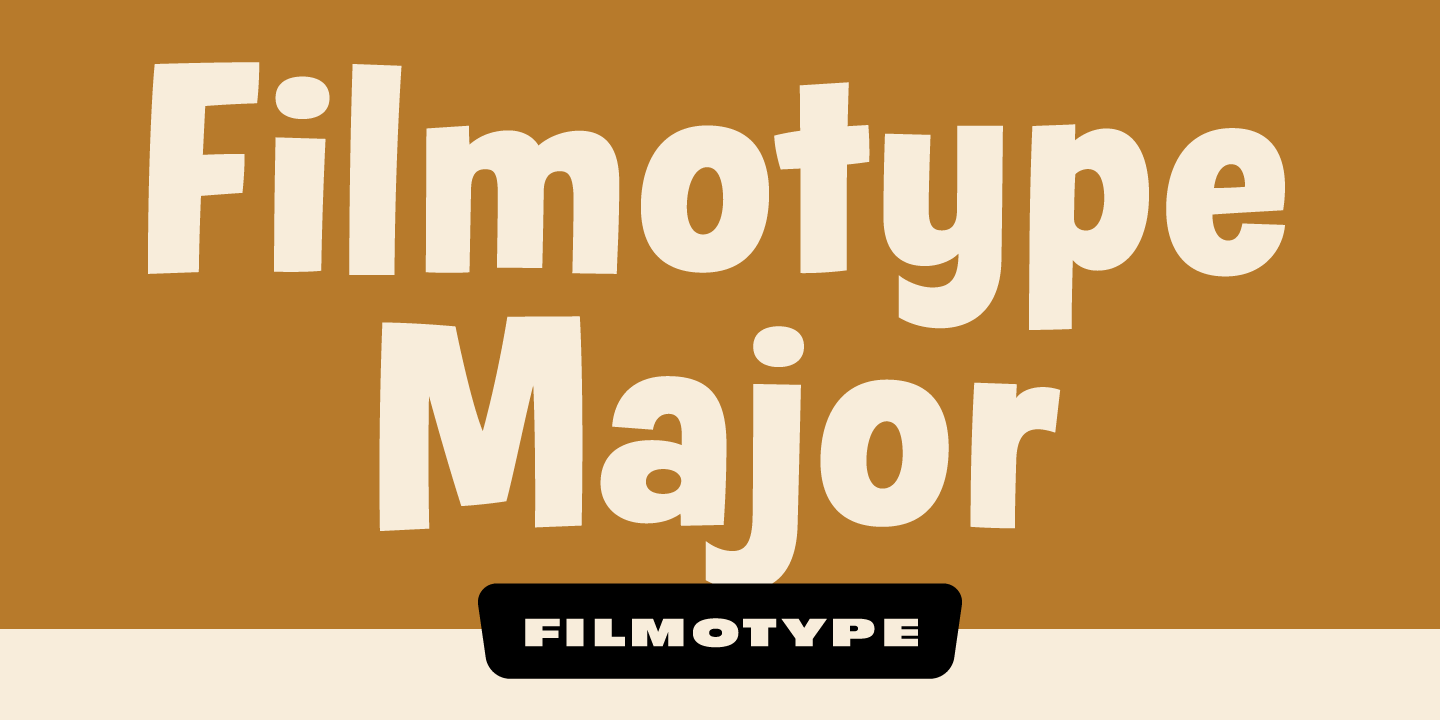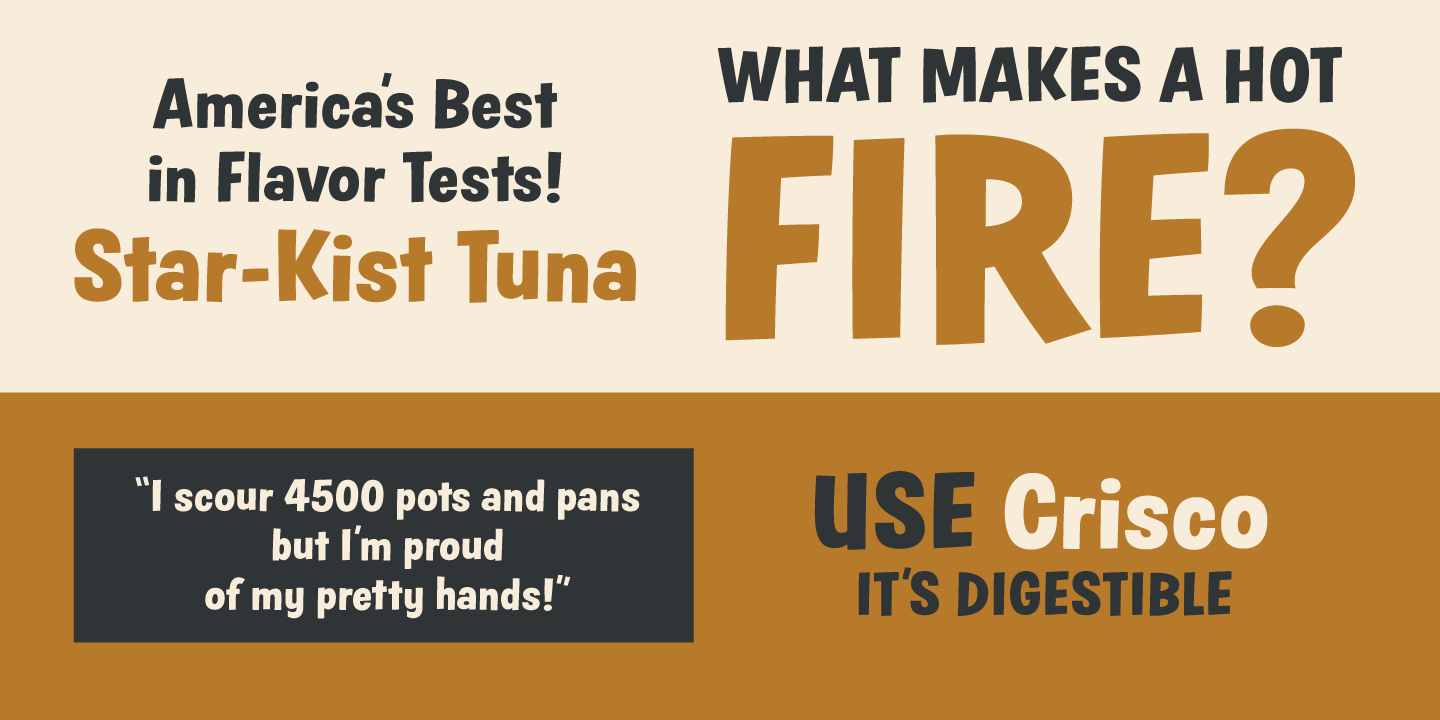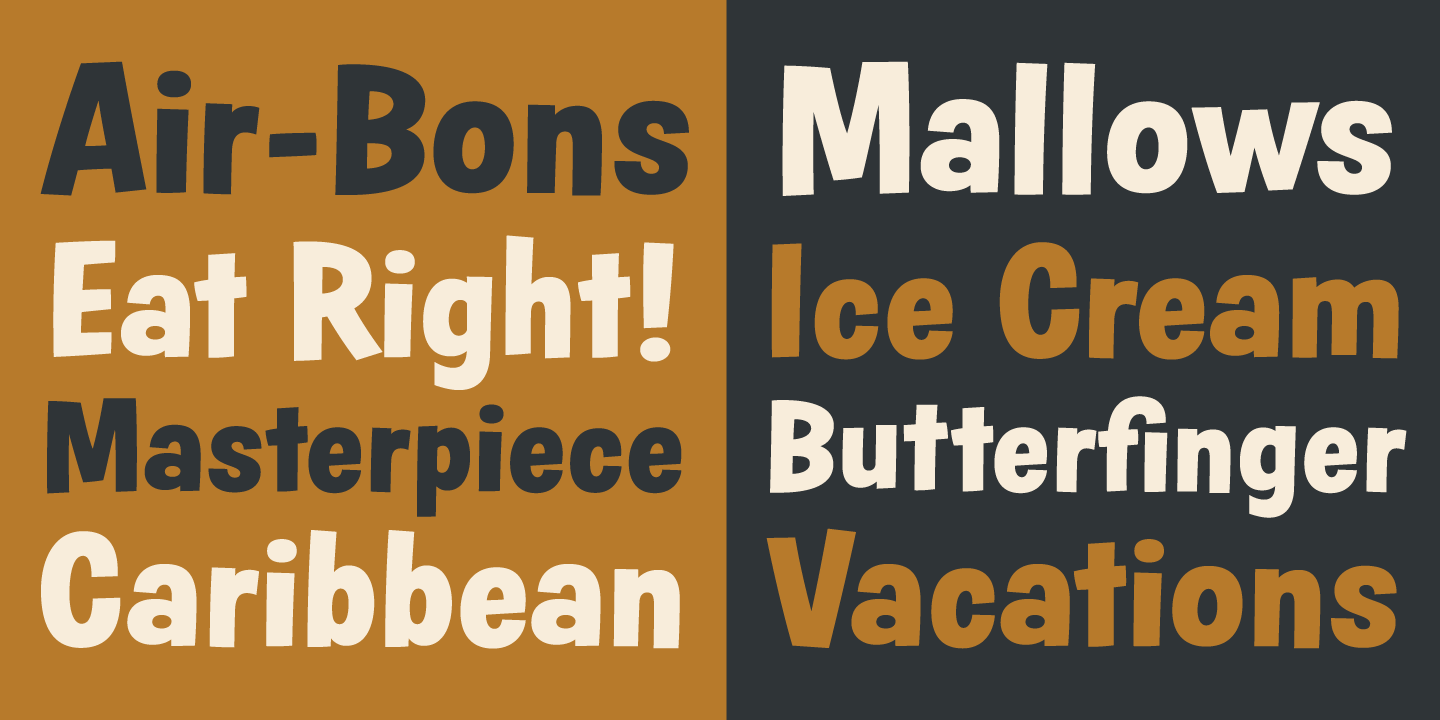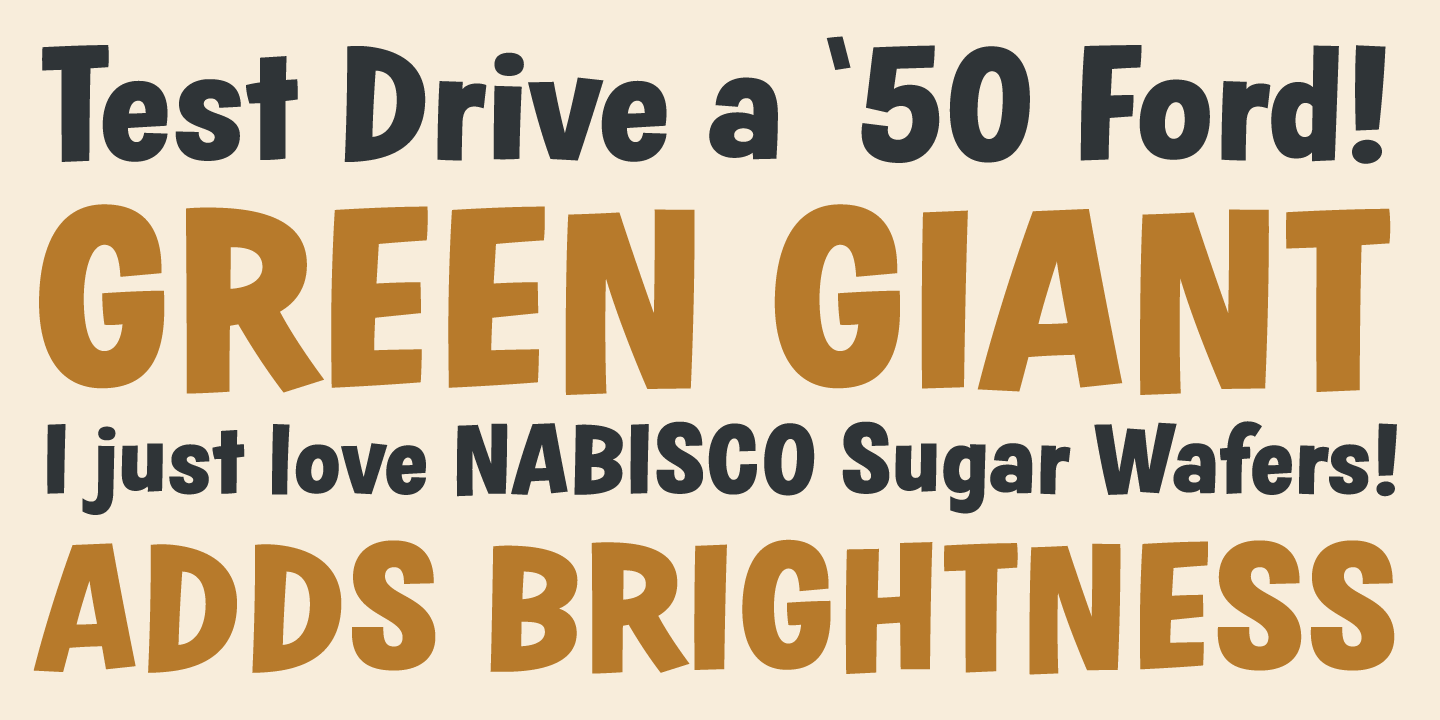
Filmotype Major
Filmotype Major is one of the hallmarks of the Free Style faces of the Filmotype Library. This bouncy sans serif was originally introduced in the early 1950s and captures the essence of mid-century casual playfulness. Its most popular use can be seen as the titling font for the popular children's book by Dr. Seuss entitled One Fish Two Fish Red Fish Blue Fish released in 1960.
Filmotype Major was developed from the original font filmstrips and includes a full international character compliment, automatic ligature combinations, ordinals, fractionals, and a host of alternate characters in dynamic OpenType format.